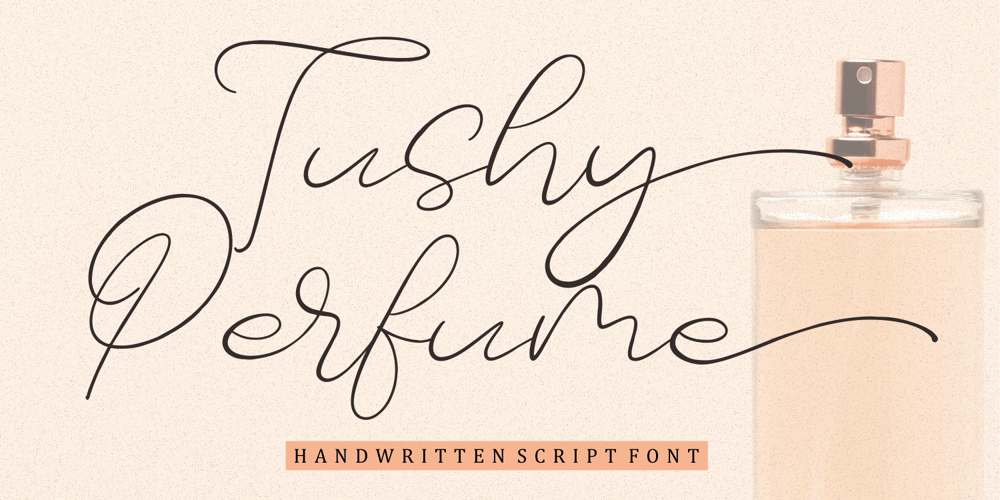
Tushy Perfume Font Family was designed by ANGGI HERMAWAN and published by Forberas Club. Tushy Perfume contains 1 styles and family package options. It’s Tushy not stussy, even it’s Pretty but ain’t lazy. yoo what’s up, this font is dedicated for you to be your crafting material. Super ready for any craft project as branding image, any tags, card maker, invitation card, greeting card, wedding decoration for your farmhouse wedding or rustic look, or decorative material.